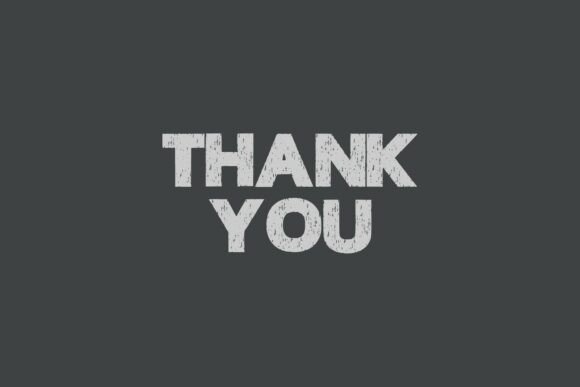
Introduction to Rough Grunge Font
Have you ever stared at a blank canvas, trying to bring your creative vision to life, only to find yourself struggling to choose the perfect font? You know, that elusive combination of style and substance that sets your project apart from the rest. For designers like you, the search for the ideal font can be a daunting task, but what if I told you that there’s a game-changing solution waiting for you? Enter the Rough Grunge Font, a bold, distressed display typeface that’s about to revolutionize your design game.
With its rugged retro aesthetic and textured grunge details, this font is a design resource like no other. Whether you’re working on a poster, streetwear branding, or album cover, the Rough Grunge Font delivers a raw urban feel combined with classic retro typography, creating a striking and authentic visual impact. And the best part? It’s available for free download, so you can start incorporating it into your creative projects right away.
Key Features of Rough Grunge Font
- Unique, distressed texture effect for a worn, vintage look
- Perfect for creative projects requiring a rugged, grungy aesthetic, such as posters, flyers, and album artwork
- Supports a wide range of languages and characters, making it a versatile font for international design projects
Honest Review: Rough Grunge Font
I recently stumbled upon the Rough Grunge Font, and I must say, it’s been a game-changer for my creative projects. The high quality design is exactly what I needed to give my designs a distressed, vintage look.
Here are some of the things that work well with the Rough Grunge Font:
- ✨ Unique texture that adds depth to any design
- ✨ Versatile font that can be used for a variety of creative projects
- ⚠️ Limited character set, which may not be suitable for long-form text
Overall, I’m really impressed with the Rough Grunge Font. It’s a fantastic design resource for anyone looking to add some edge to their creative project. While it may have some limitations, the benefits far outweigh the drawbacks.
Tips for Getting the Most Out of Rough Grunge Font
Experiment with different font sizes, colors, and styles to create unique designs. You can also use the font in combination with other design elements, such as textures and graphics, to add depth and interest to your projects.
Rough Grunge Font is ideal for creative projects that require a rugged, distressed look, such as music posters, album artwork, or urban-themed designs. You can also use the font for personal projects, such as scrapbooking or DIY crafts.